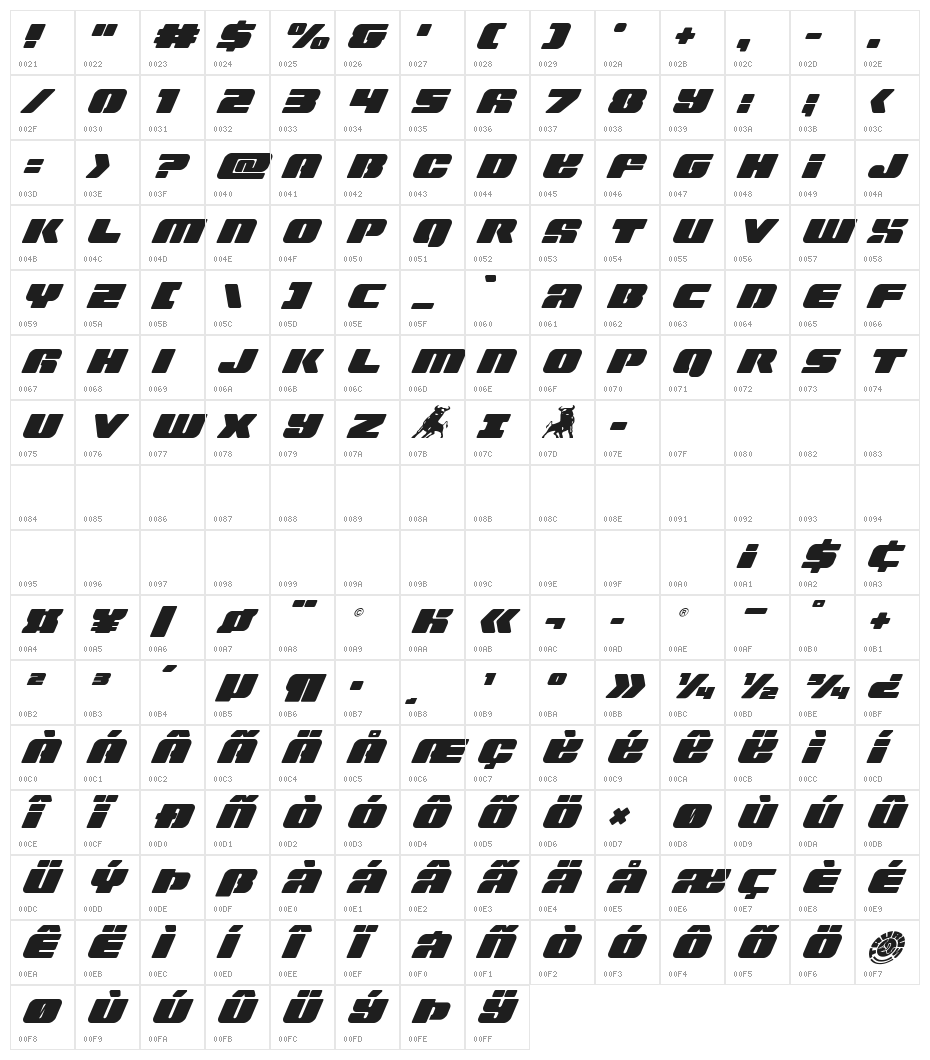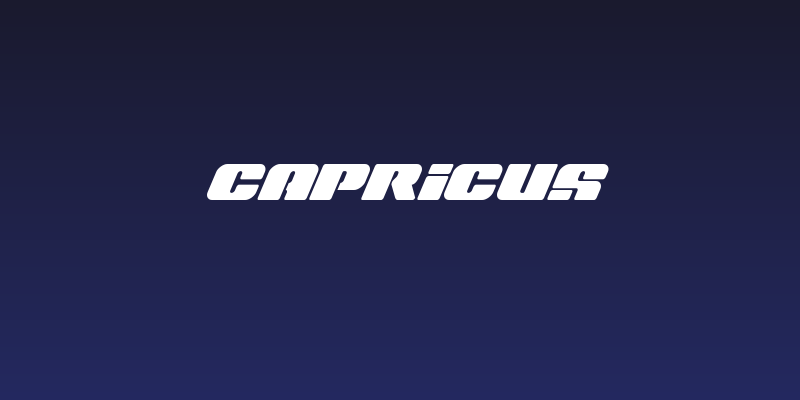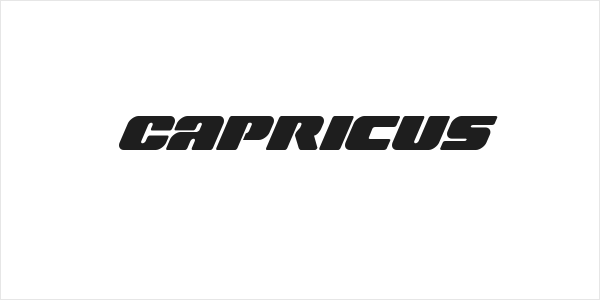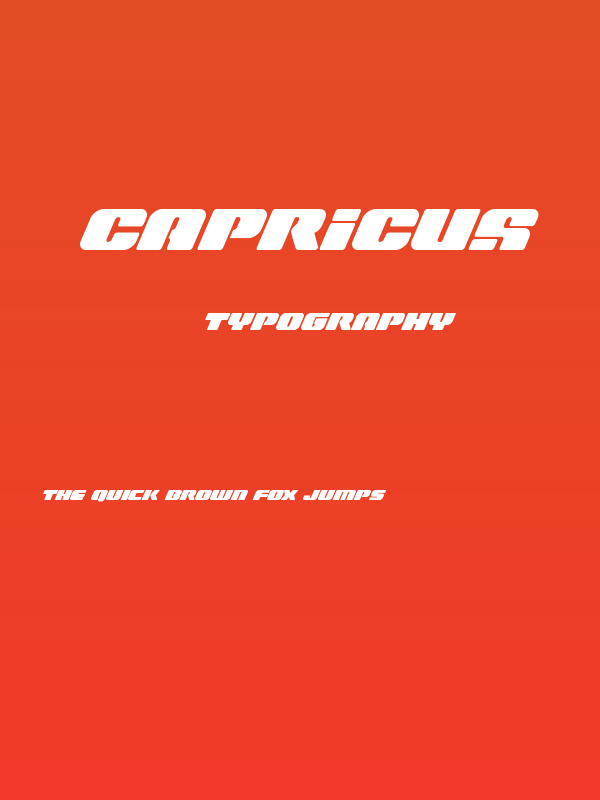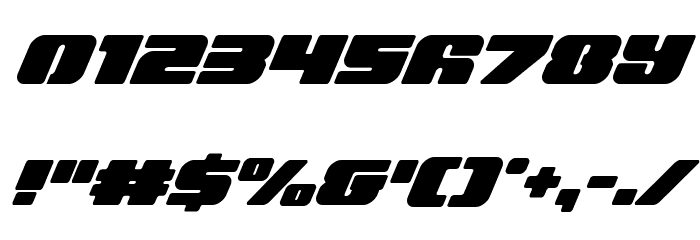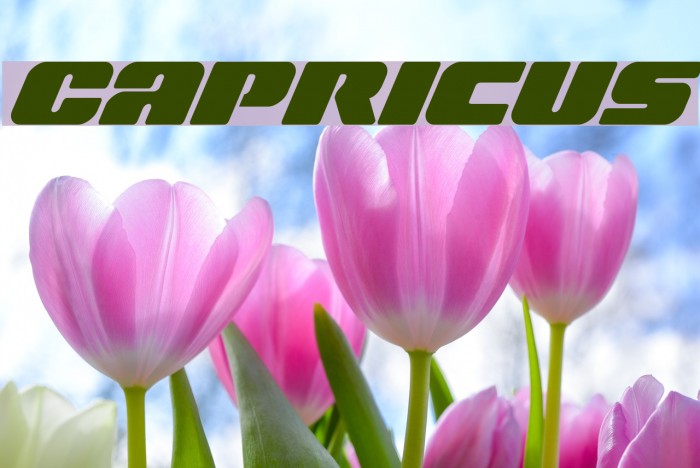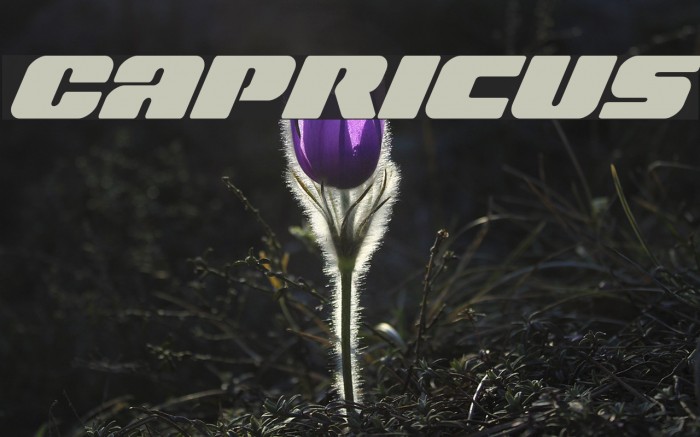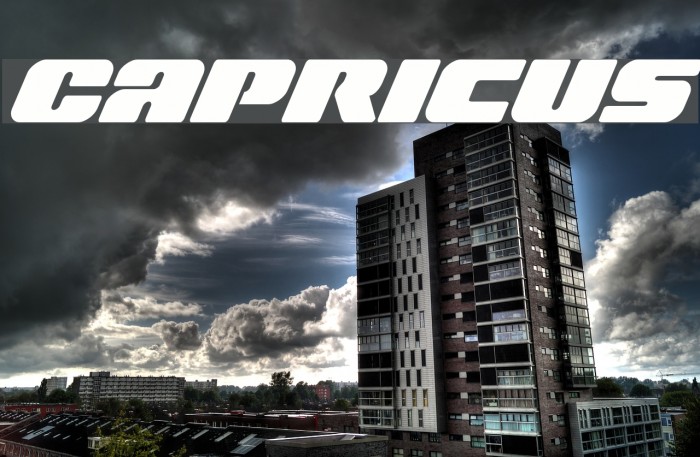
Capricus Font
Capricus Description
This font features a bold and dynamic design with a futuristic flair. The characters are heavily stylized with sharp angles and a blocky appearance, giving them a sense of movement and energy. The uppercase and lowercase letters maintain a consistent width, creating a uniform look across the text. The numbers and special characters follow the same design principles, ensuring a cohesive appearance. This font is ideal for projects that require a strong visual impact, such as posters, logos, and branding materials.